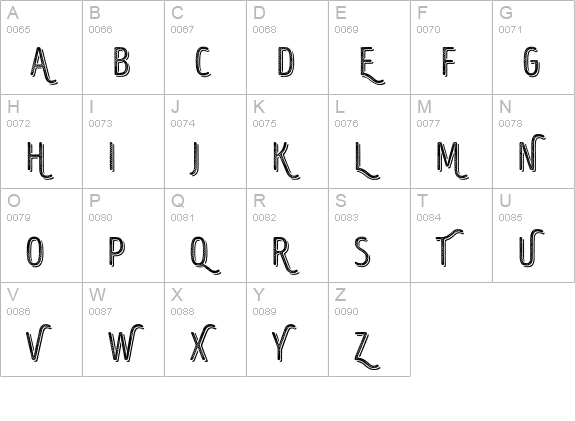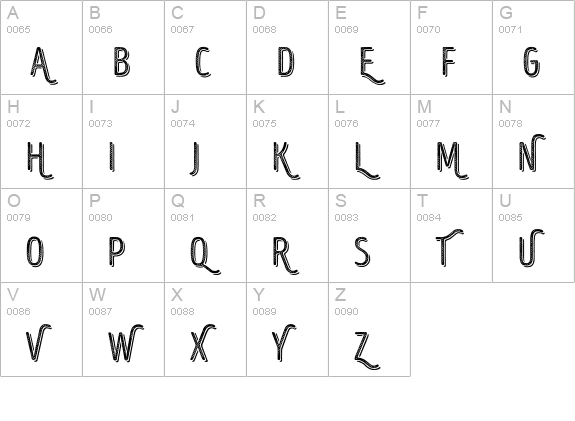
Intro Head R UC L Base Shade Font Details
The Intro Head R UC L Base Shade font is a stunning display font that exudes elegance and sophistication. Its stylish and modern design makes it perfect for creating eye-catching headlines, titles, and logos. The strong and bold letterforms command attention, while the subtle shading adds depth and dimension to your designs. This font is available for free download at FontsMarket.com, making it easily accessible for all your creative projects. Whether you're designing posters, branding materials, or website headers, the Intro Head R UC L Base Shade font will help you make a bold statement with its unique and impactful style. Upgrade your designs with this versatile font today and let your creativity shine.